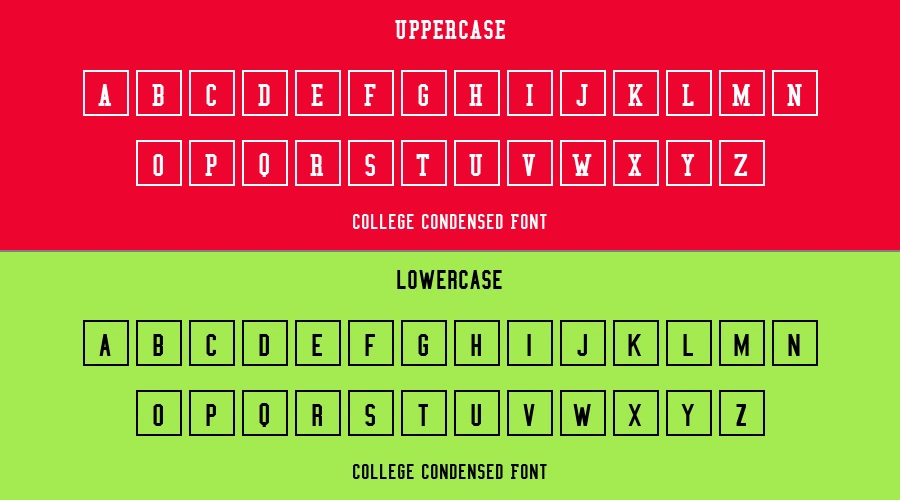
About College Condensed Font
College Condensed Font embodies typographic excellence through its masterful combination of width contrast and textural richness. Created for engineering specs, this typeface delivers exceptional clarity and creative excellence across all applications. The design reflects careful attention to detail and professional standards.
Advanced capabilities include distinctive curved brackets and versatile small caps, giving designers creative control. When used in technical manuals, College Condensed Font exhibits remarkable format conversion. The harmonious balance between bowl width and standards alignment sets this typeface apart.